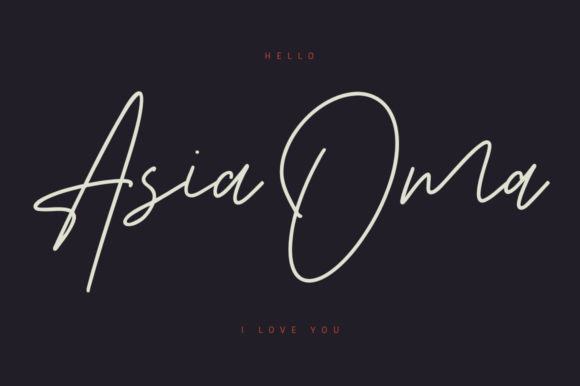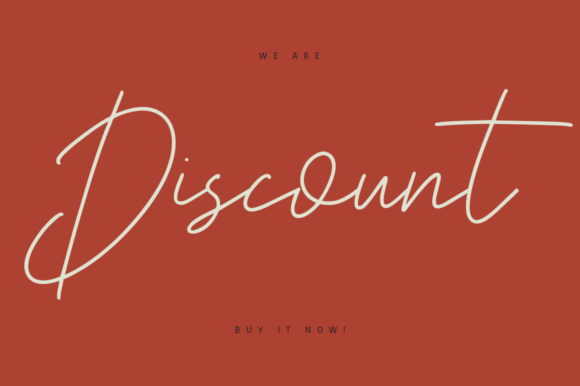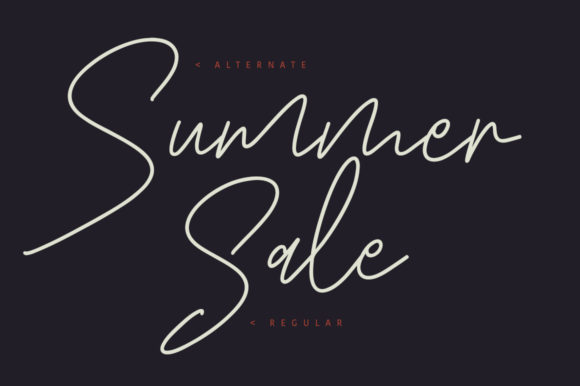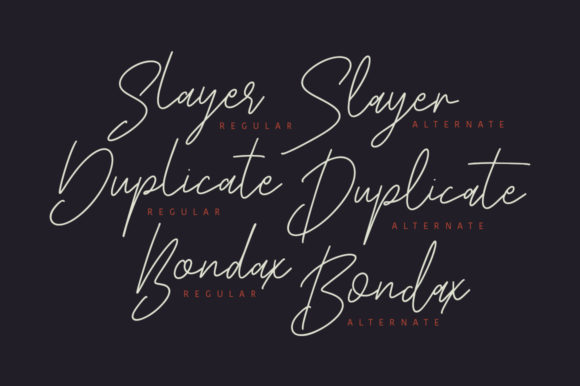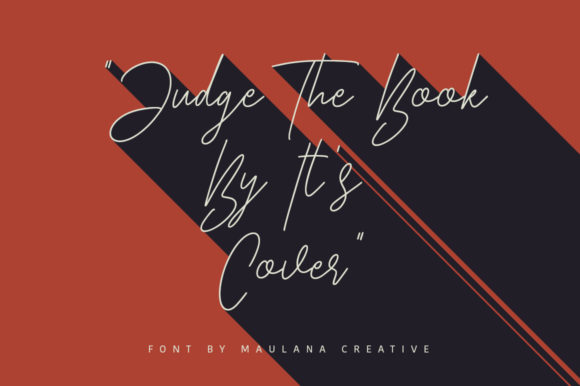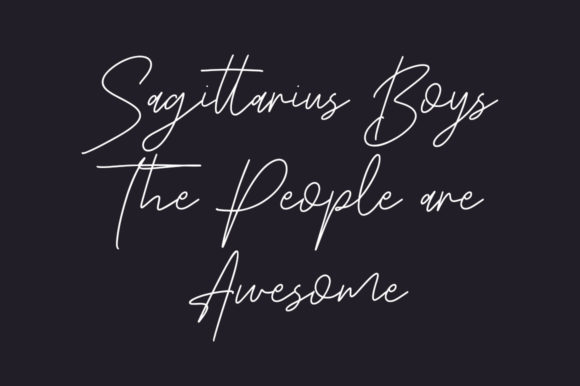
The Goodsay Font: A Simple yet Elegant Design Solution
Have you ever been in the middle of a design project, and suddenly, you’re stuck on finding the perfect font? I recall a recent experience where I was working on a client’s branding project, and I just couldn’t find a font that captured the relaxed yet elegant vibe they were looking for. That’s when I stumbled upon the Goodsay font, and it completely transformed my design. In this article, we’ll dive into the world of Goodsay, exploring its features, and how to make the most of it in your designs.
A Personal Review of Goodsay
As a designer, I’m always on the lookout for fonts that can elevate my work. Here’s my honest review of Goodsay:
What I Love About Goodsay ✨
- ✅ Simple and thin strokes that exude elegance
- ✨ Flowing handwritten feel that adds a touch of warmth
- ✅ Relaxed and sophisticated vibe that’s perfect for various design projects
- ✨ Highly legible, even at smaller font sizes
- ⚠️ Limited availability of stylistic alternates, which might limit its versatility
- ⚠️ May not be the best fit for bold or attention-grabbing designs
The Story Behind Goodsay
The Goodsay font was designed with the intention of creating a simple yet elegant handwritten font. Inspired by the flowing strokes of calligraphy, Goodsay aims to bring a touch of warmth and sophistication to any design project. Whether you’re working on a branding project, a wedding invitation, or a social media graphic, Goodsay is an excellent choice.
| What is the Goodsay font best suited for? | Goodsay is perfect for designs that require a relaxed yet elegant feel, such as branding projects, wedding invitations, and social media graphics. |
| Is Goodsay a script font? | Goodsay is a handwritten font with a flowing feel, but it’s not a traditional script font. It has a more relaxed and elegant vibe. |